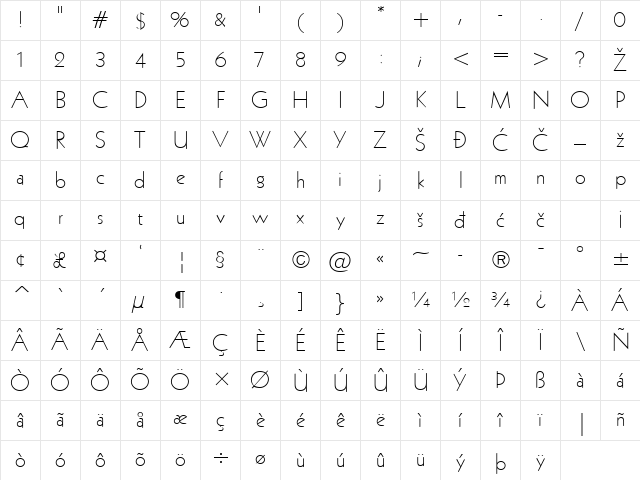
Geometric231Light Regular
Design Context for Geometric231Light
Geometric231Light is a composed and adaptable typeface that performs quietly and consistently across a wide range of design contexts. Its slender proportions lend an understated elegance to any composition.